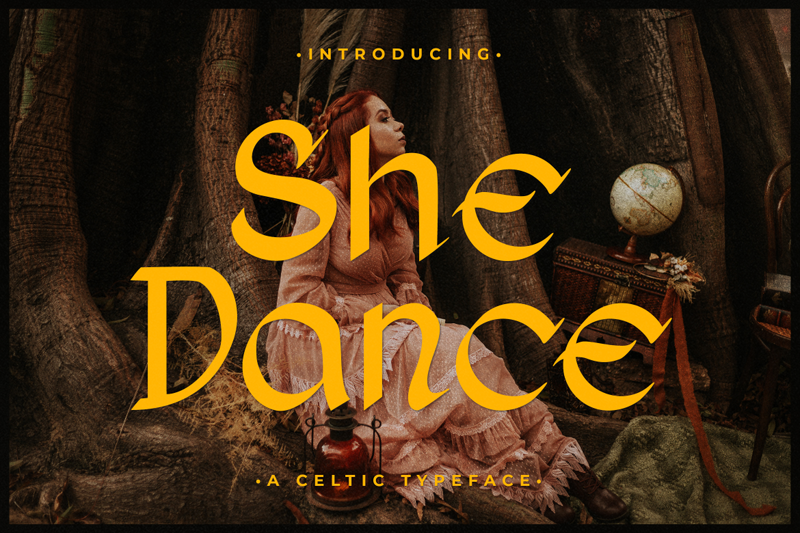
Font name: | She Dance |
Categories | Gothic, Celtic |
Author: | Type Factory |
Note by Type Factory | |
She Dance is a celtic style display font combined with a modern design, this font is modern, elegant and looks aesthetic. This unique display typeface is inspired by celtic styles. Use it for any design project that requires a personalized appearance! Full Version Download Here : https://typefactory.co/product/she-dance-celtyic-typeface/ https://www.creativefabrica.com/product/she-dance/ref/501262/ |